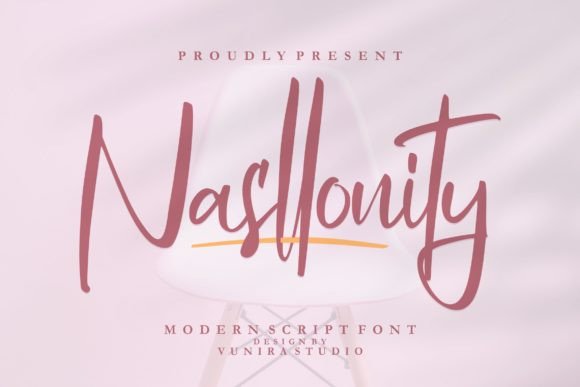
Unleash the Allure of Invitations with Nasllonity: A Font Symphony for Special Occasions
In the realm of fonts, Nasllonity stands apart as an exquisite creation, a testament to the power of handwritten artistry. Its smooth, elegant strokes evoke a sense of timeless grace, while its well-balanced characters dance harmoniously across the page. With Nasllonity, your invitations transcend the ordinary, becoming enchanting portals into moments of celebration and joy.
Picture the radiant glow of a newly engaged couple, their hearts aflame with anticipation for their upcoming nuptials. As they embark on the journey of planning their special day, the choice of font for their invitations holds immense significance. Nasllonity emerges as the perfect partner for this momentous occasion, its elegant curves mirroring the joy and elegance of the event. Its flowing lines capture the essence of love and commitment, inviting guests to share in the couple's boundless happiness.
Beyond weddings, Nasllonity's versatility extends to a myriad of celebrations, from birthdays and anniversaries to corporate events and milestone achievements. Its ability to transform ordinary text into captivating works of art makes it an indispensable tool for designers and creatives seeking to leave a lasting impression.
Embark on a Journey of Creative Expression with Nasllonity
With Nasllonity as your creative companion, the possibilities are endless. Its compatibility with a diverse range of design projects ensures that your ideas will always find a perfect match. Let your imagination soar as you craft stunning logos, eye-catching posters, and captivating social media graphics. Nasllonity's innate charm adds a touch of sophistication to any project, elevating it from ordinary to extraordinary.
Experience the Magic of Nasllonity Today
Nasllonity is more than just a font; it's an invitation to unlock your creative potential and make a statement. Its beauty and versatility will transform your invitations and designs into captivating expressions of joy, love, and celebration. Embrace the magic of Nasllonity and watch as your creative visions come alive in breathtaking style.